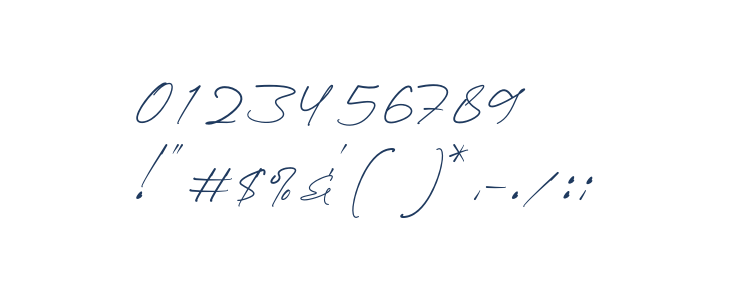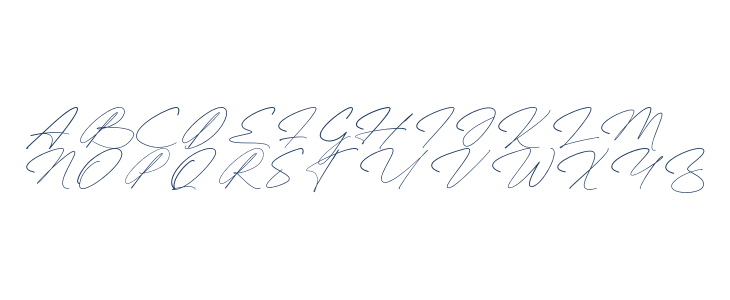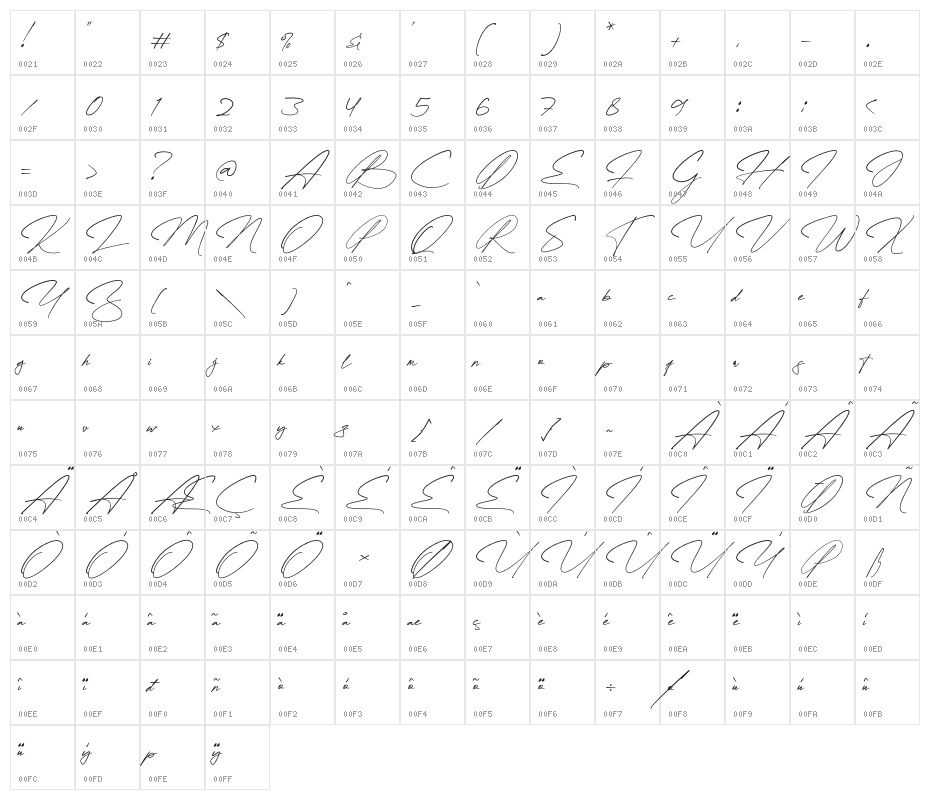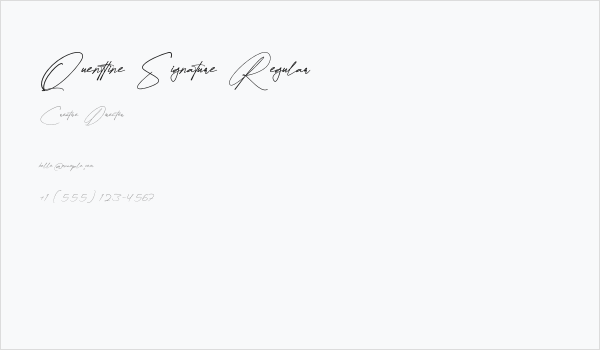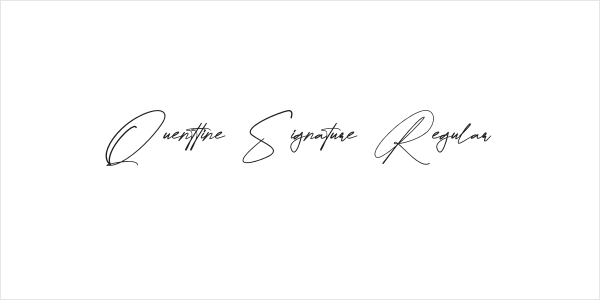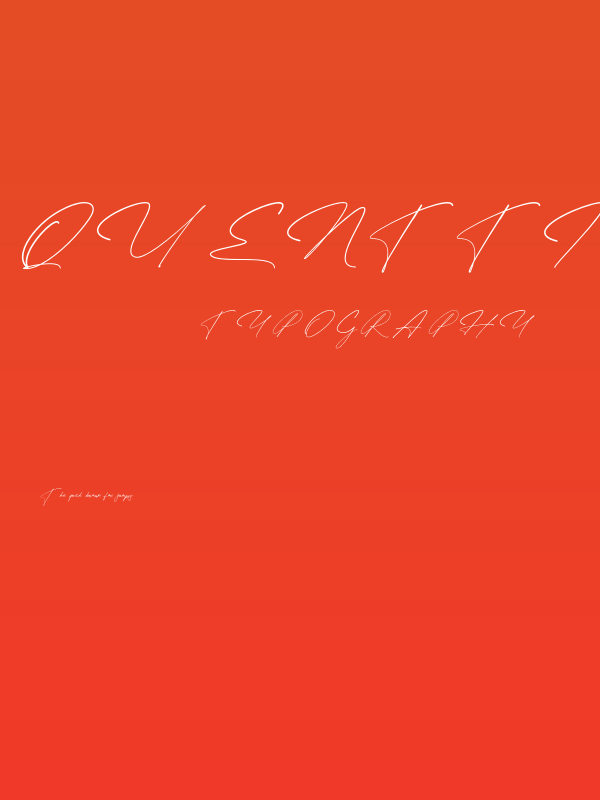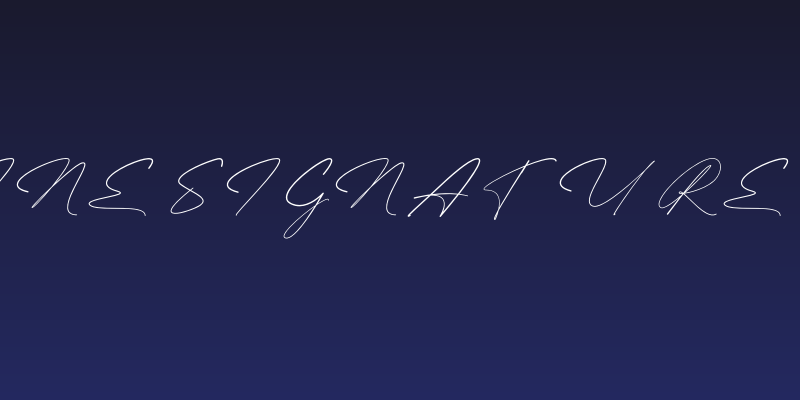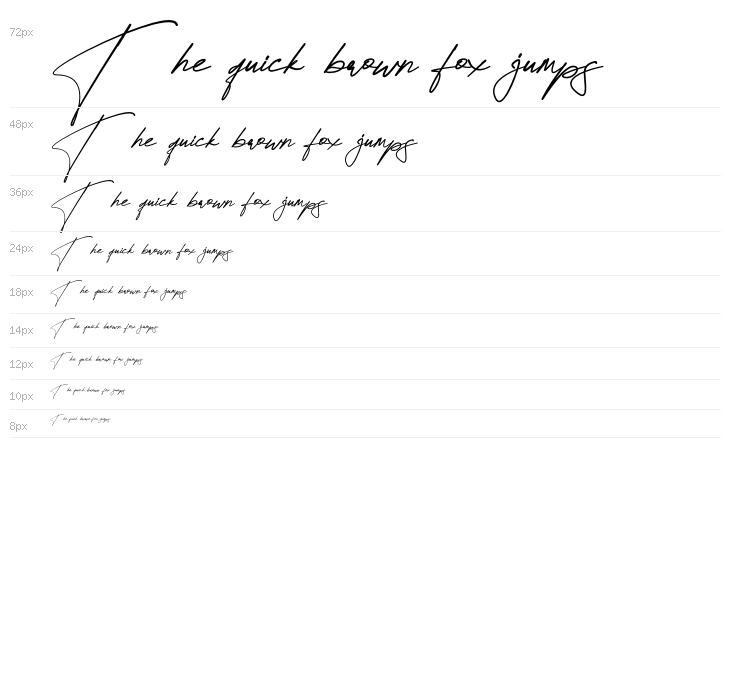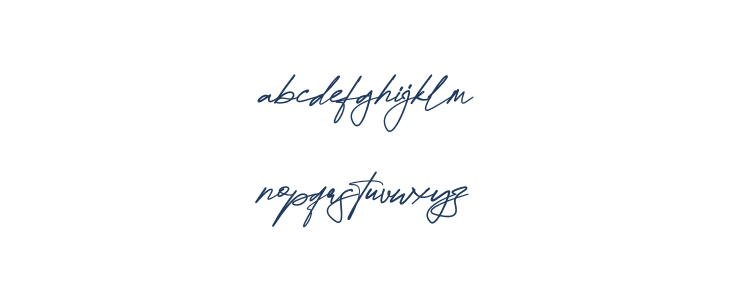
Quenttine Signature Regular Font
Quenttine Signature Regular Description
Elegant, flowing script with a handwritten appearance, featuring thin strokes and natural, variable letterforms that mimic authentic penmanship. The characters are slightly slanted and loosely connected, with generous loops and flourishes, especially in lowercase letters.
| Overall Style | Elegant, Modern, Decorative |
| Use Case | Signatures, Invitations, Personal branding, Decorative headings |
| Proposed Projects | Personal branding, signatures, invitations, greeting cards, logos, social media graphics. |